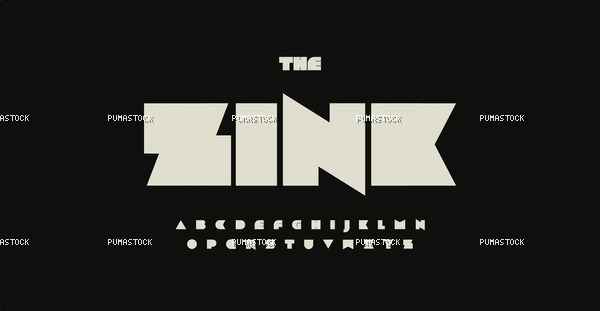
Rebellious font, ultramodern heavy typeset with sharp angles. Rough letters, futuristic cyberpunk alphabet, minimalist type for techno logo, headline and monogram. Vector typographic font design